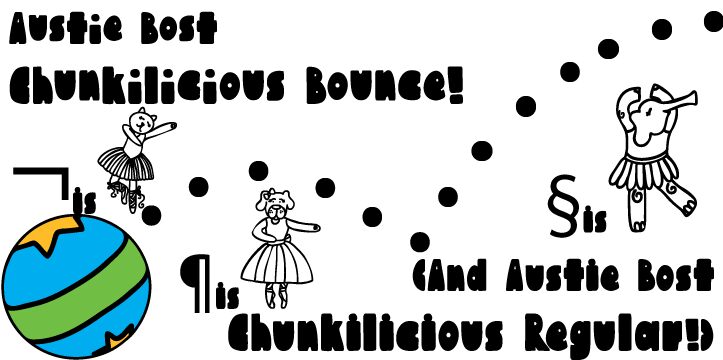
Austie Bost Chunkilicious Bounce
Austie Bost Chunkilicious Bounce is a free comic display font with oversized, soft-edged letters and an exuberant, uneven stance. The forms shift sharply between broad and narrow, with tiny interior openings, squeezed joins, and occasional notches that make the lettering look cut and nudged by hand.
Playful food themes and children's entertainment are convincing territory, since the plump shapes resemble candy pieces or soft toys. It could give snack packaging, party posters, and comedy graphics a loud, cheerful voice. That recurring wobble also lets the alphabet become part of a bouncing mascot or illustrated logo rather than plain lettering.